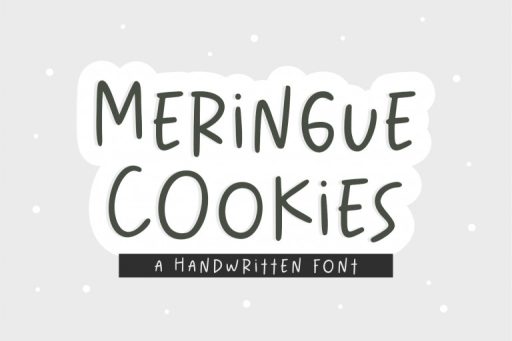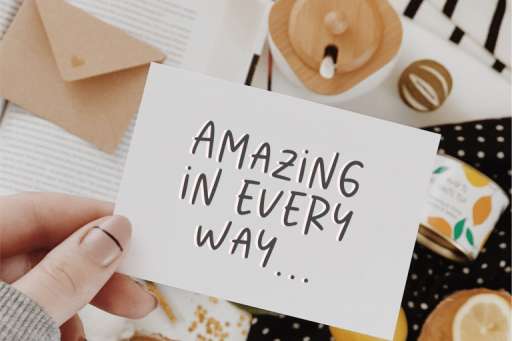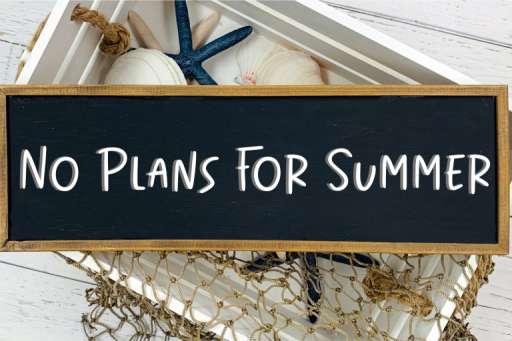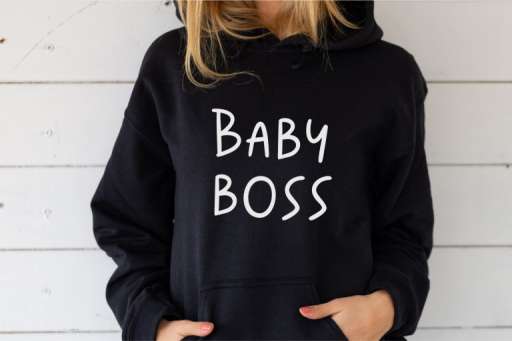
Meringue Cookies Font
Meringue Cookies – Marker Handwritten Font from Jimtype Studio
Meringue Cookies is a handwritten font full of positivity and character. A friendly hand-lettered typeface with charm and style! This font is perfect for quotes, headings, logos, branding, merchandise, and websites.